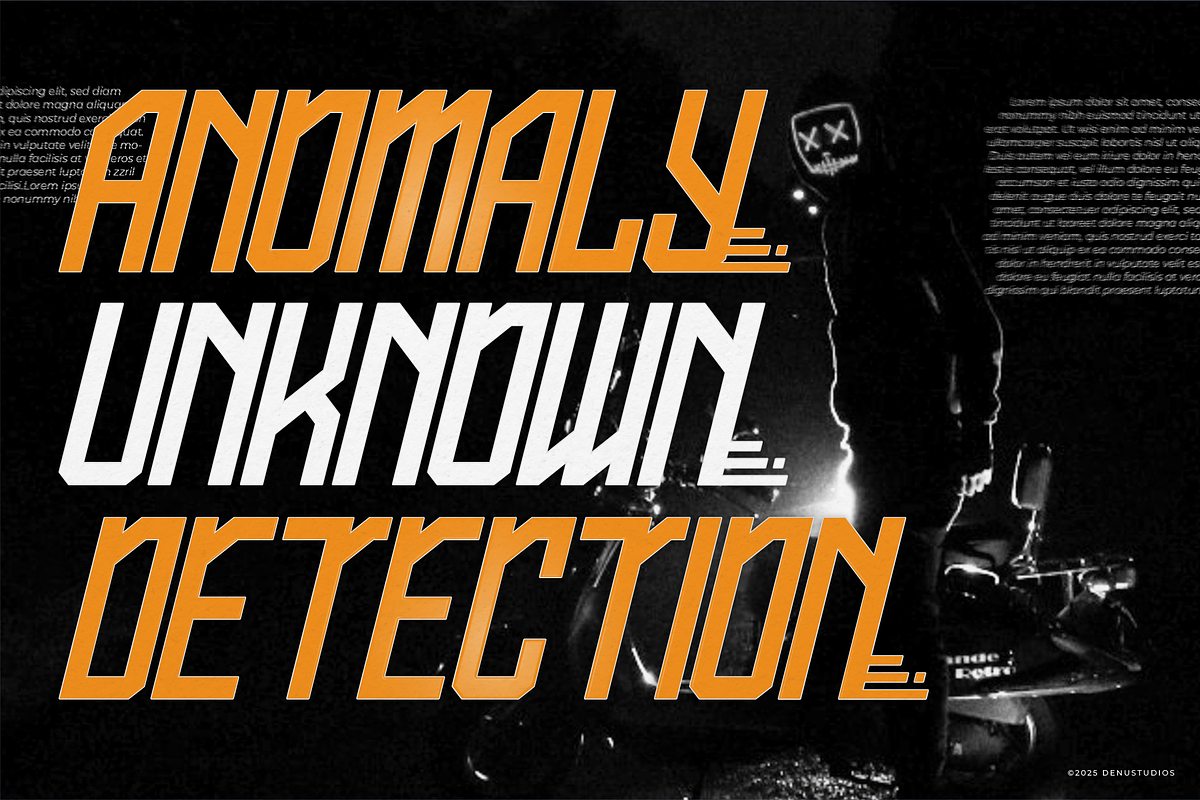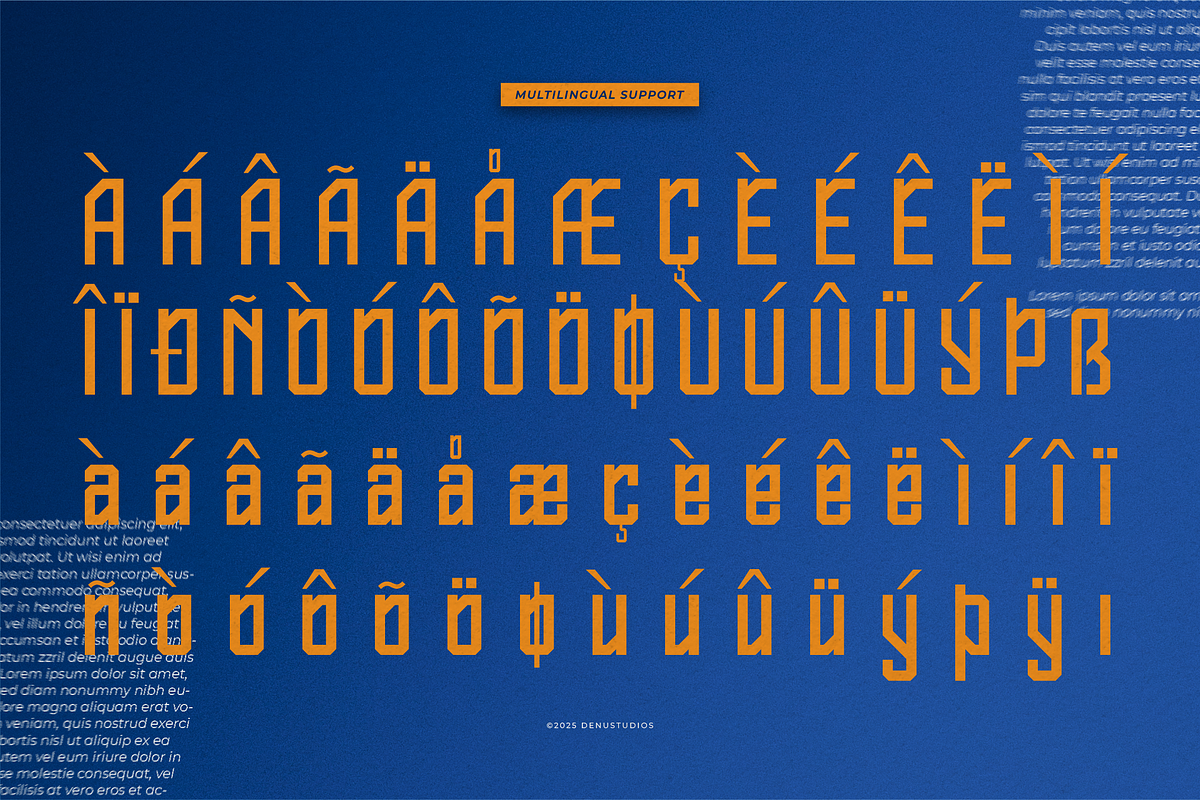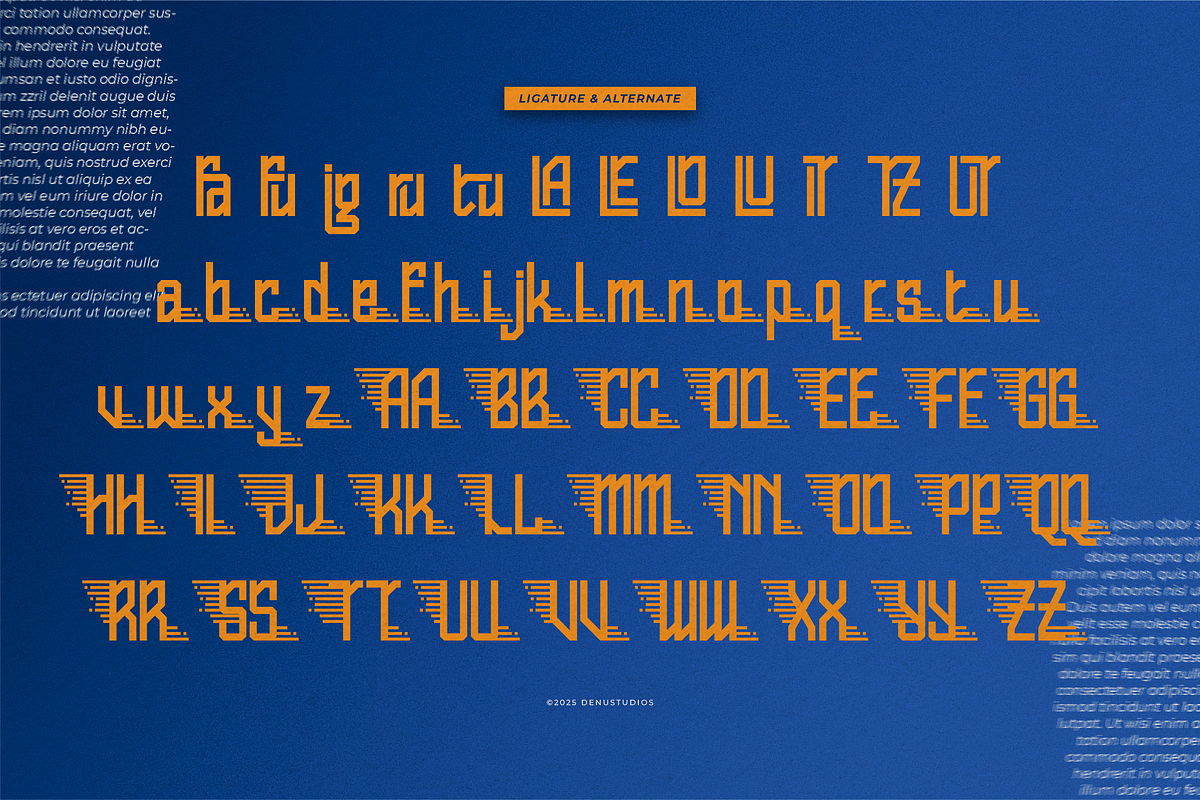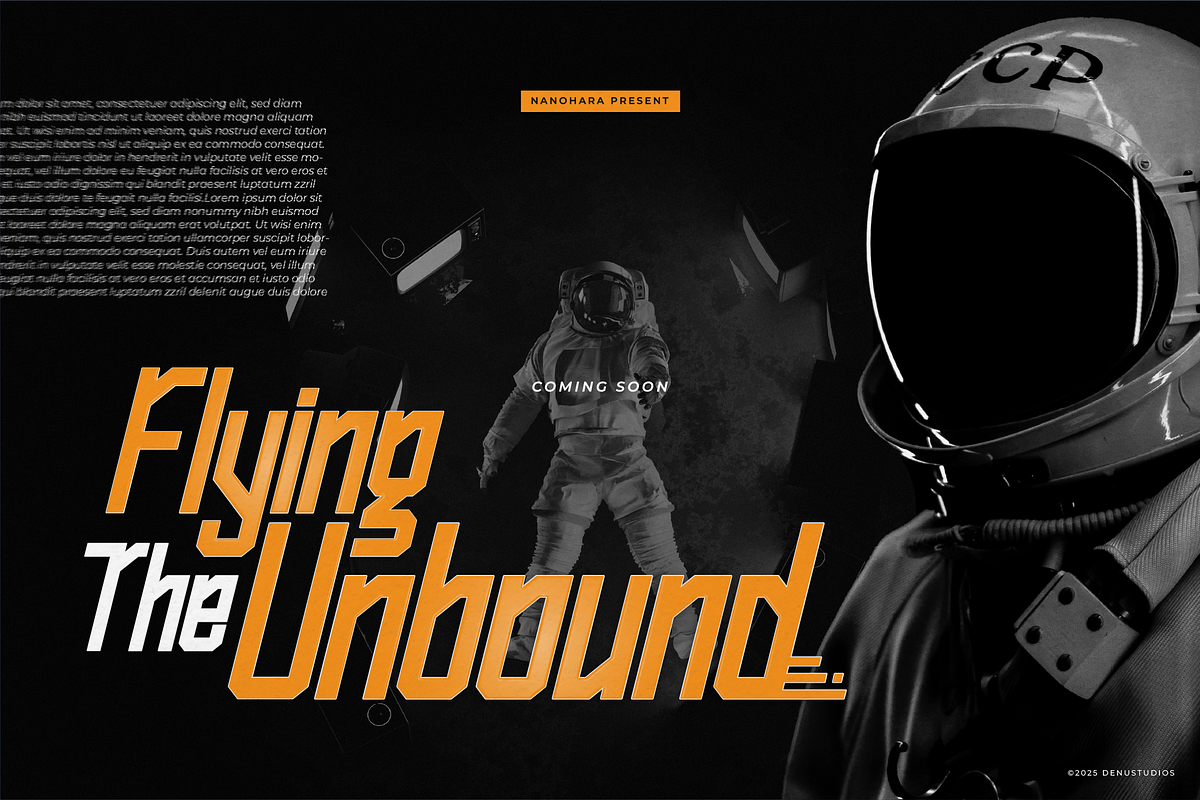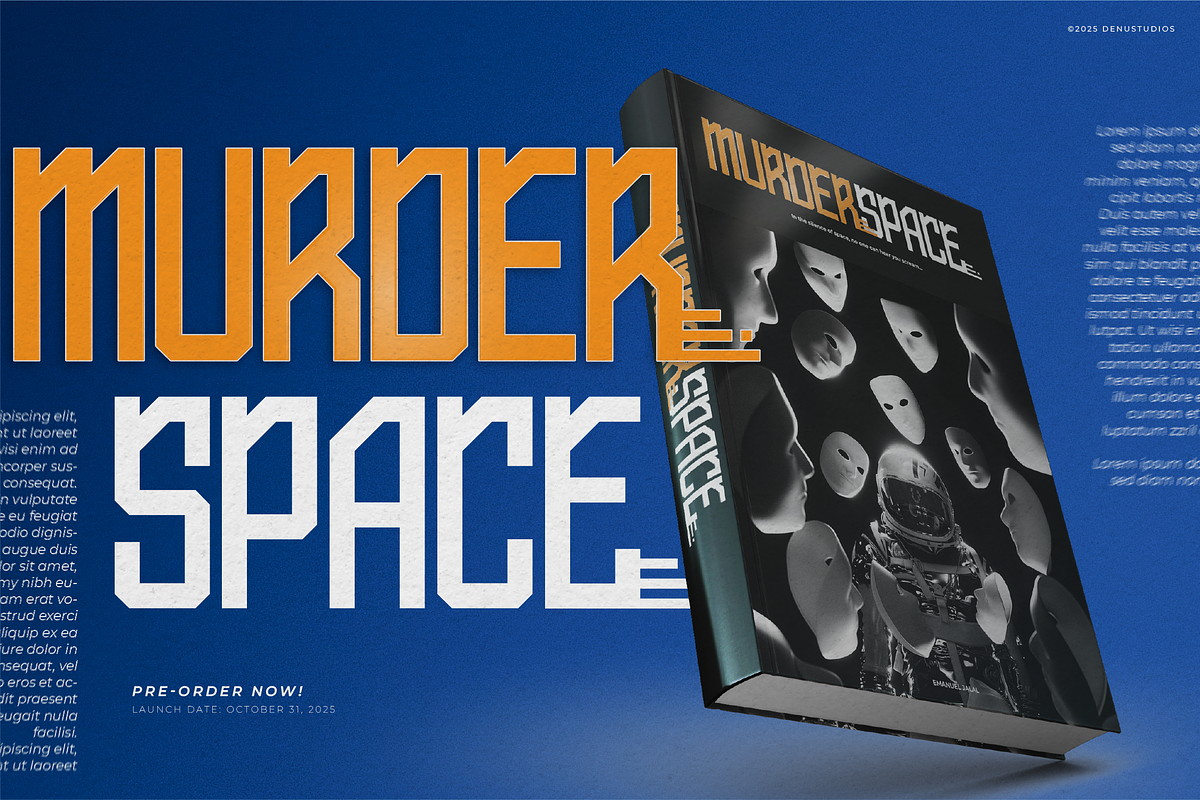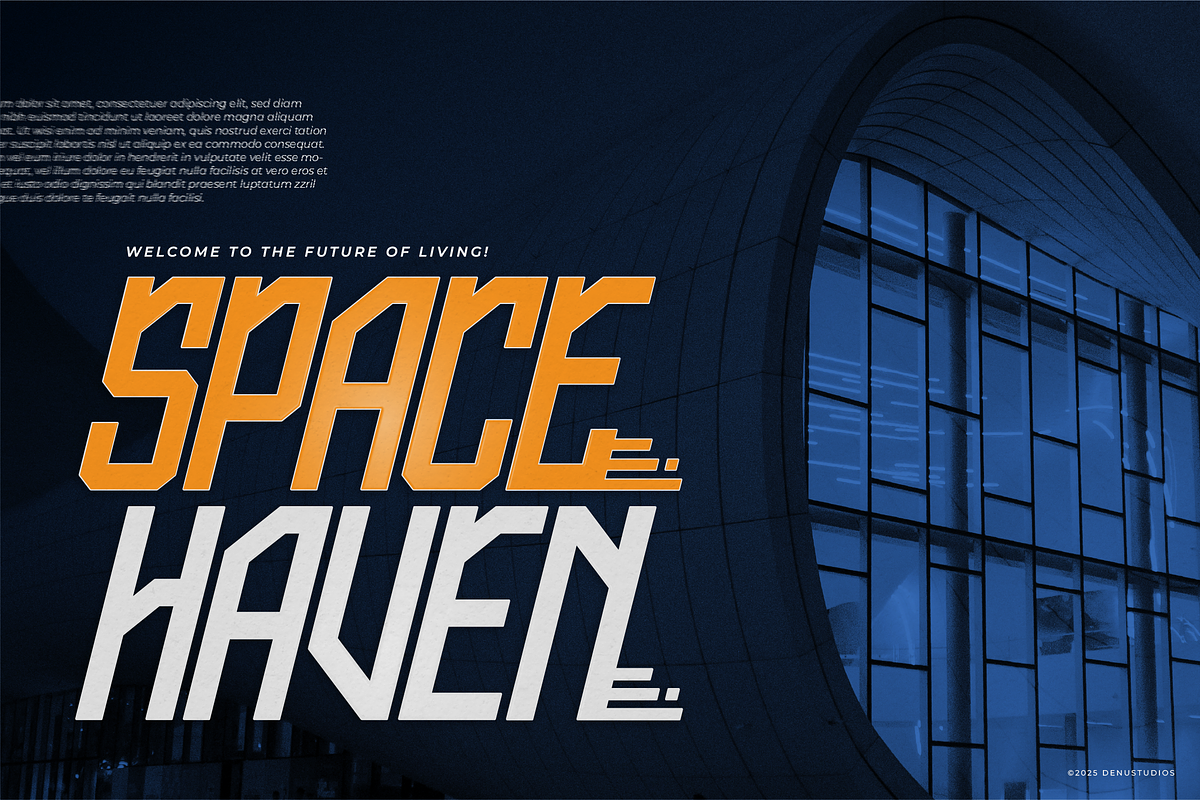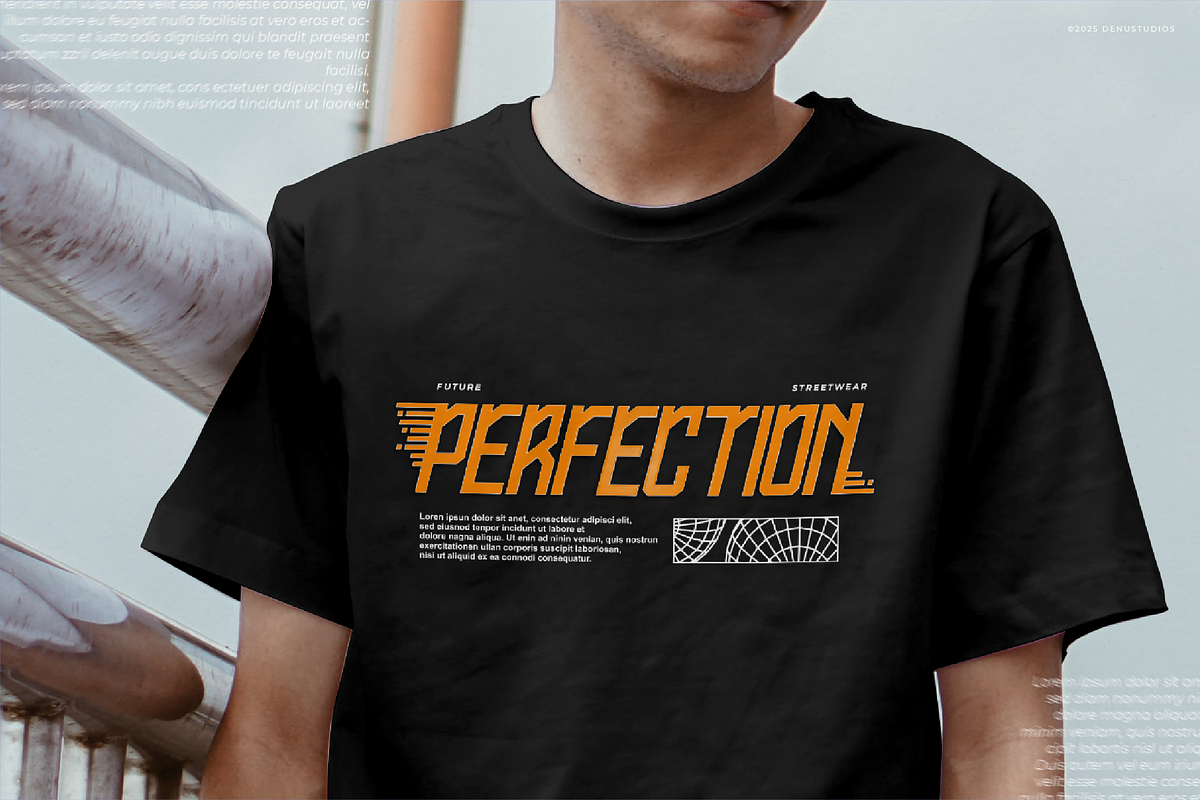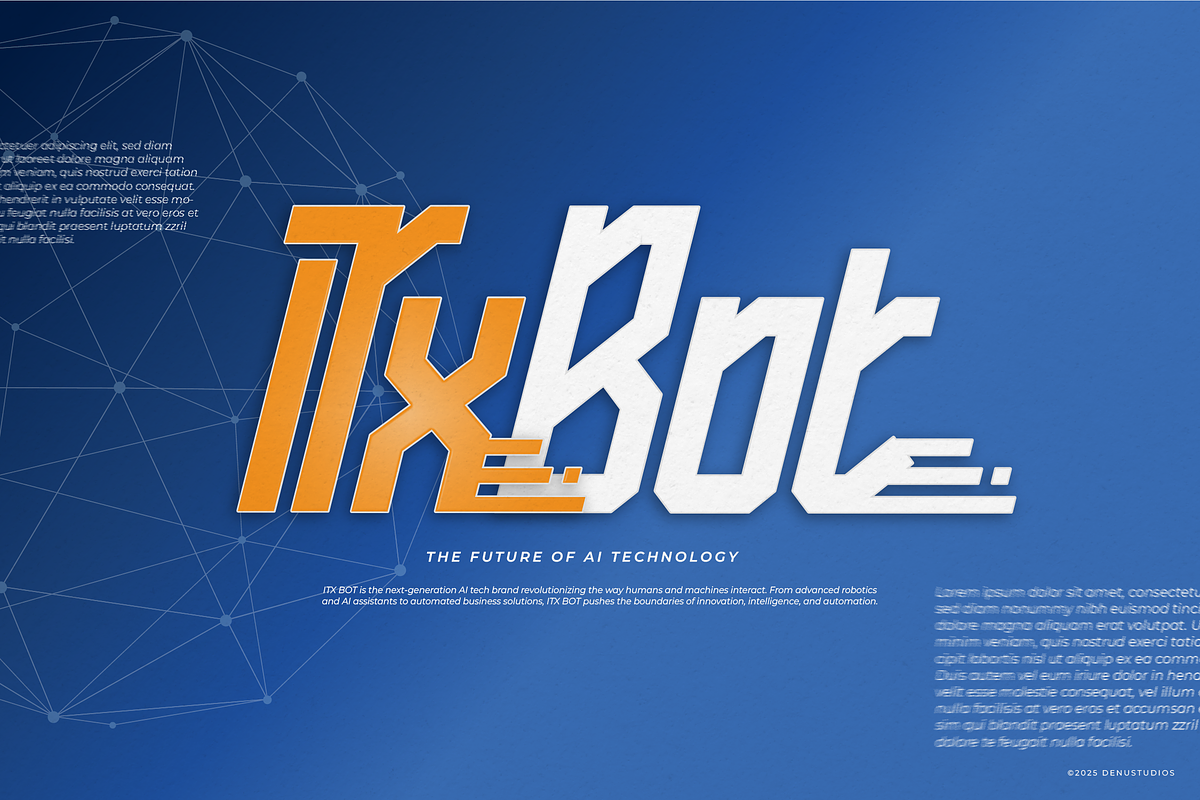
Dlar Sky | Tech Condensed Font
Dlar Sky | Tech Condensed Font, from Denustudios, suitable for any projects such as: logos, branding projects, homeware designs, product packaging, mugs, quotes, posters, shopping bags, t-shirts, book covers, name card, invitation cards, greeting cards, label, photography, watermark, special events, and all your other lovely projects that need a Tech Condensed Font taste.